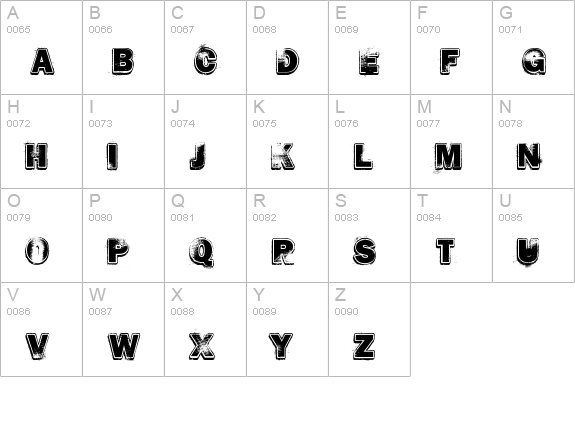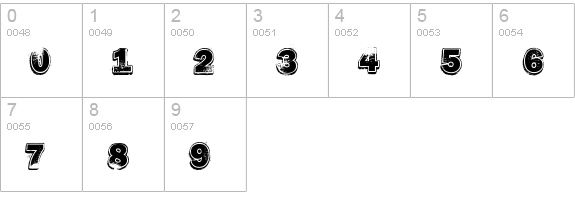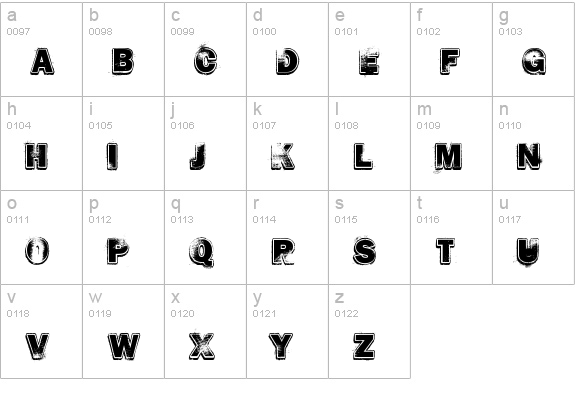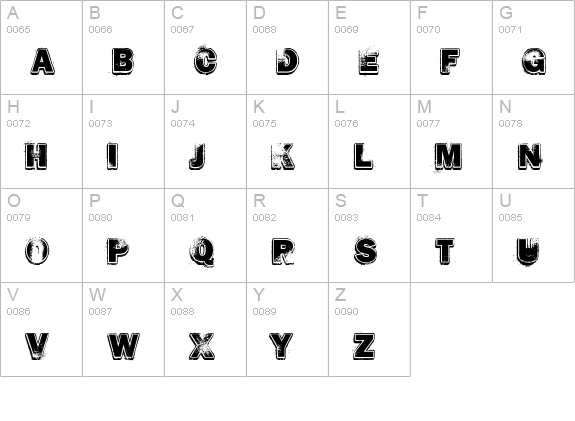
HARD ROCK Font Details
The HARD ROCK font is a bold and powerful typeface that exudes strength and edginess. Its rugged, angular letterforms give off a sense of raw energy and rebelliousness, making it perfect for projects that require a tough and unapologetic aesthetic. This font is ideal for posters, album covers, and any design that demands a strong presence. Best of all, the HARD ROCK font is available for free download at FontsMarket.com. Now you can add a touch of rock 'n' roll to your designs without breaking the bank. Don't miss out on this versatile and impactful typeface that will take your projects to the next level.